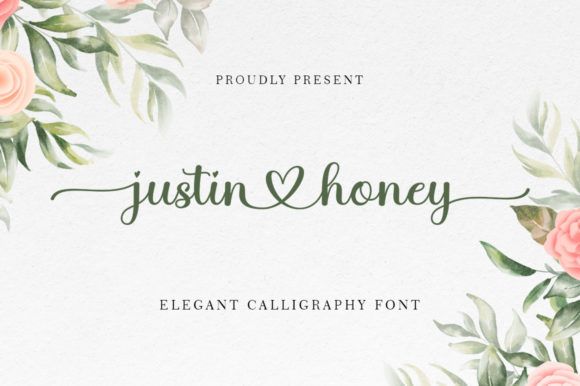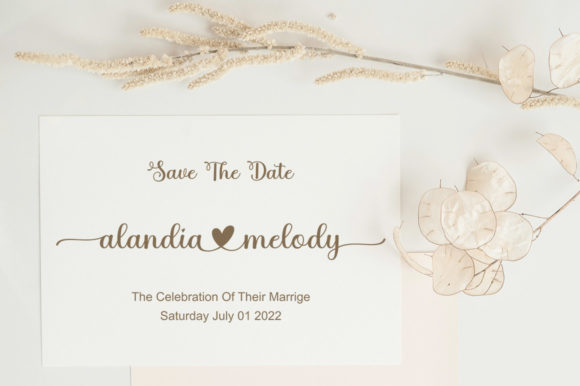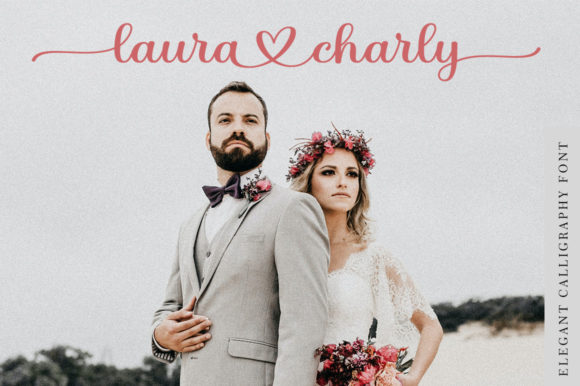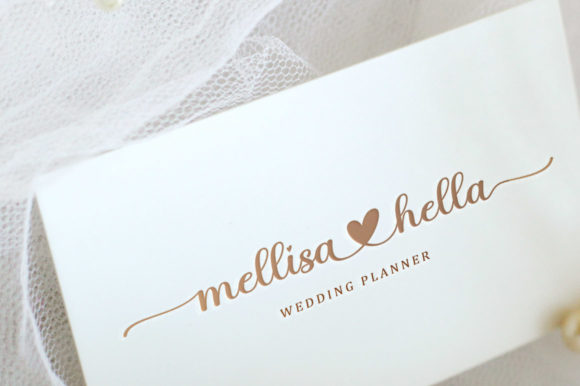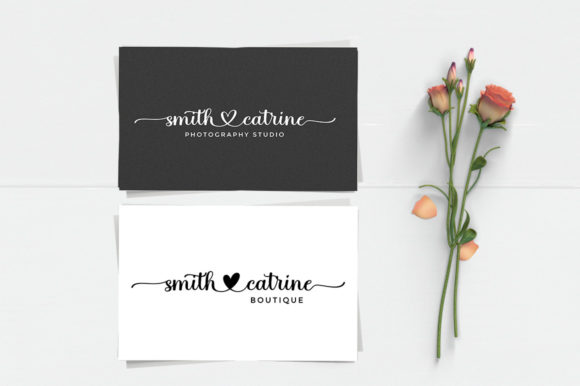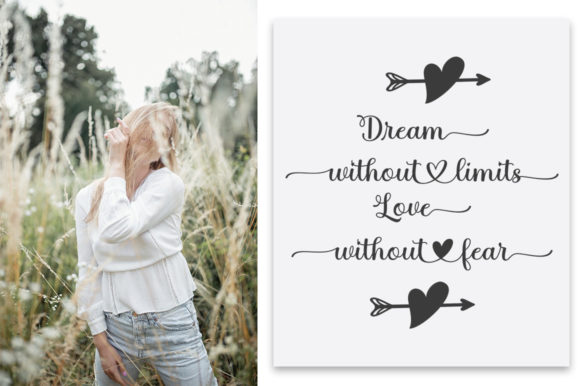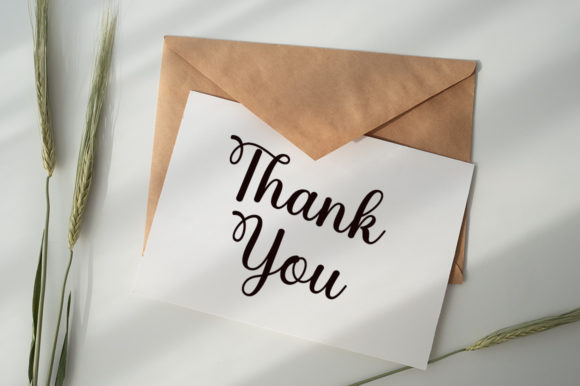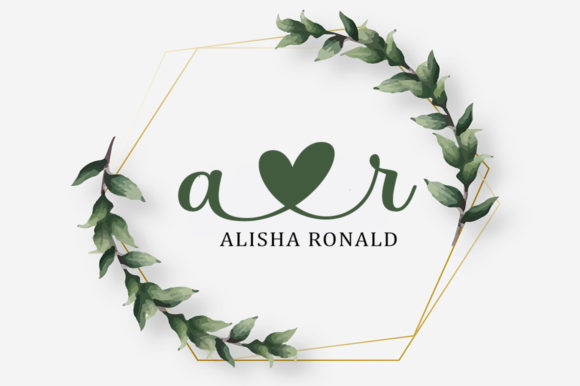
About Justine Honey Font
Justine Honey is a captivating and enchanting calligraphy typeface that exudes romance and sweetness. With its elegant and flowing characters that gracefully dance along the baseline, this font is perfect for adding a touch of luxury and sophistication to your design projects.
Whether you’re working on wedding invitations, thank you cards, quotes, greeting cards, logos, or business cards, Justine Honey will elevate your designs and create a truly memorable impression. Its intricate ligatures and decorative glyphs add an extra level of beauty and charm, allowing you to create unique and eye-catching compositions.
The romantic and sweet nature of Justine Honey makes it a versatile choice for various design projects. Its graceful curves and exquisite letterforms bring a sense of elegance and refinement, making it ideal for creating sophisticated branding, stationery, and social media posts.
Embrace the luxury and beauty of Justine Honey and let it inspire your creative endeavors. Whether you’re aiming for a timeless and classic look or a modern and chic aesthetic, this font will bring your design visions to life. Let Justine Honey add that extra spark of romance and sophistication to your creations.